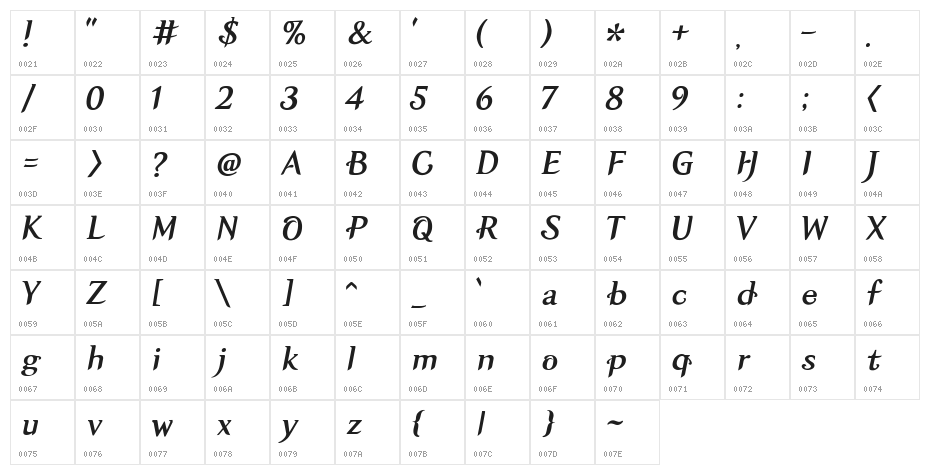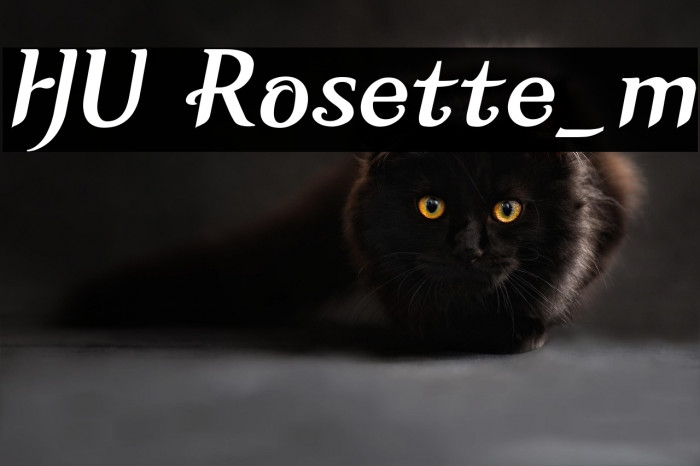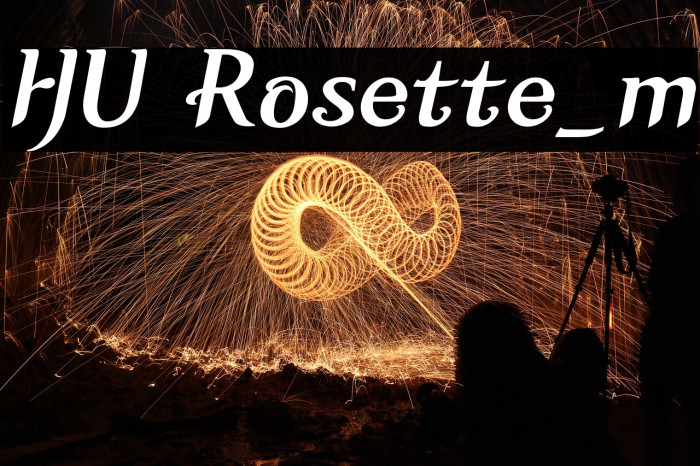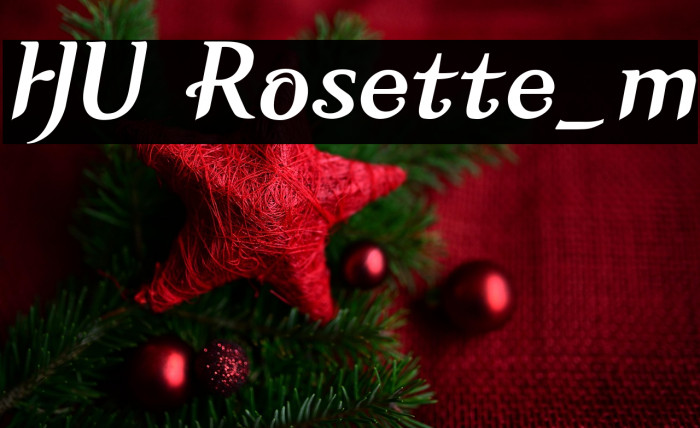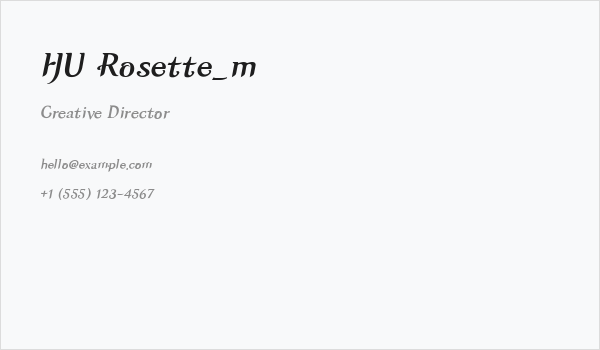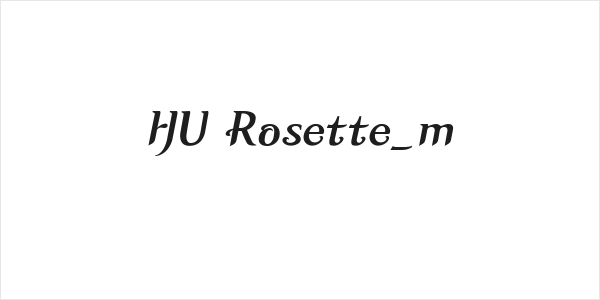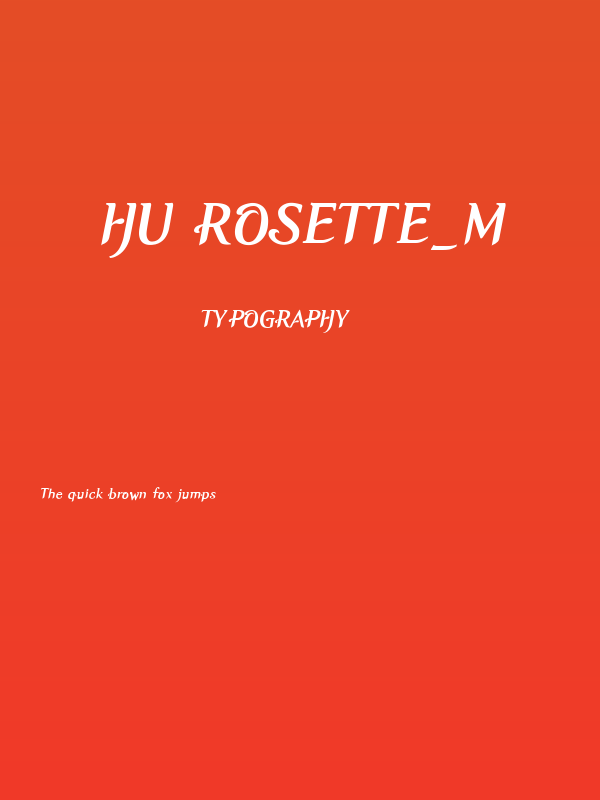
HU Rosette_m Font
HU Rosette_m Description
This font exhibits a dynamic and elegant style with a slight slant, giving it a sense of movement and sophistication. The characters are well-defined with a moderate contrast between thick and thin strokes, enhancing readability while maintaining an artistic flair. The uppercase letters are bold and commanding, while the lowercase letters are more fluid and graceful. Numerals are clear and consistent, matching the overall aesthetic of the font. Special characters are designed with the same attention to detail, ensuring uniformity across all glyphs.
| Use Case | Headlines, Invitations, Editorial Design |
| Proposed Projects | Ideal for branding, invitations, and editorial design where elegance and readability are key. |